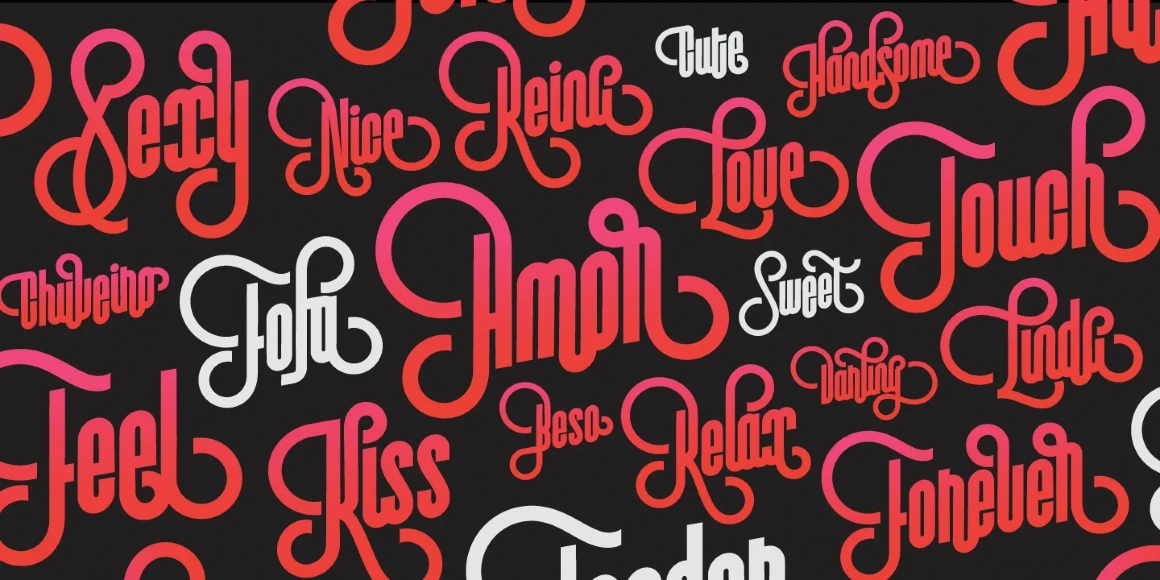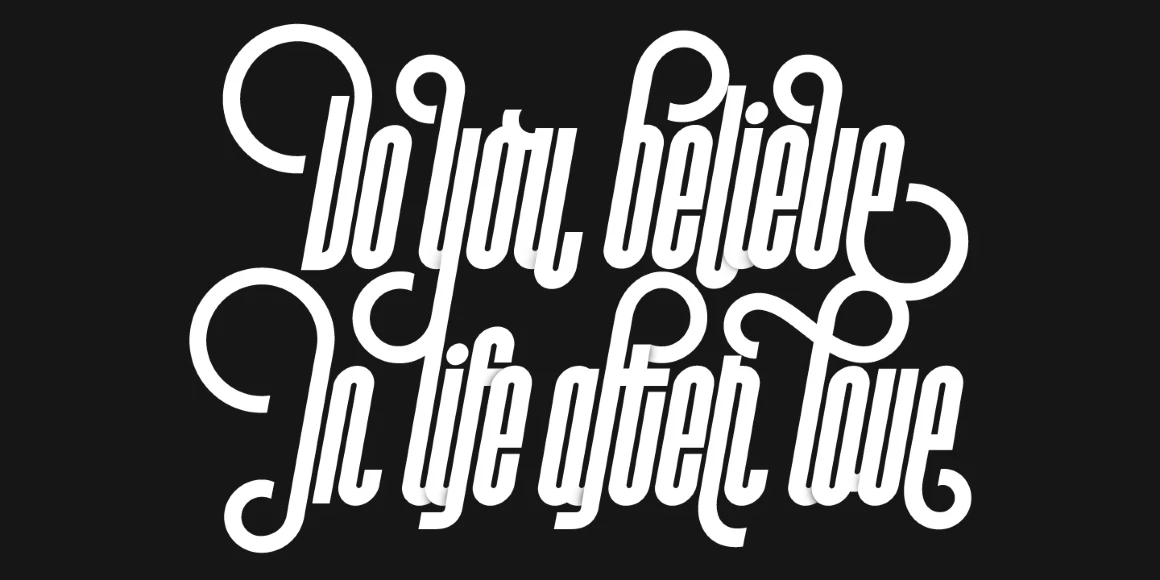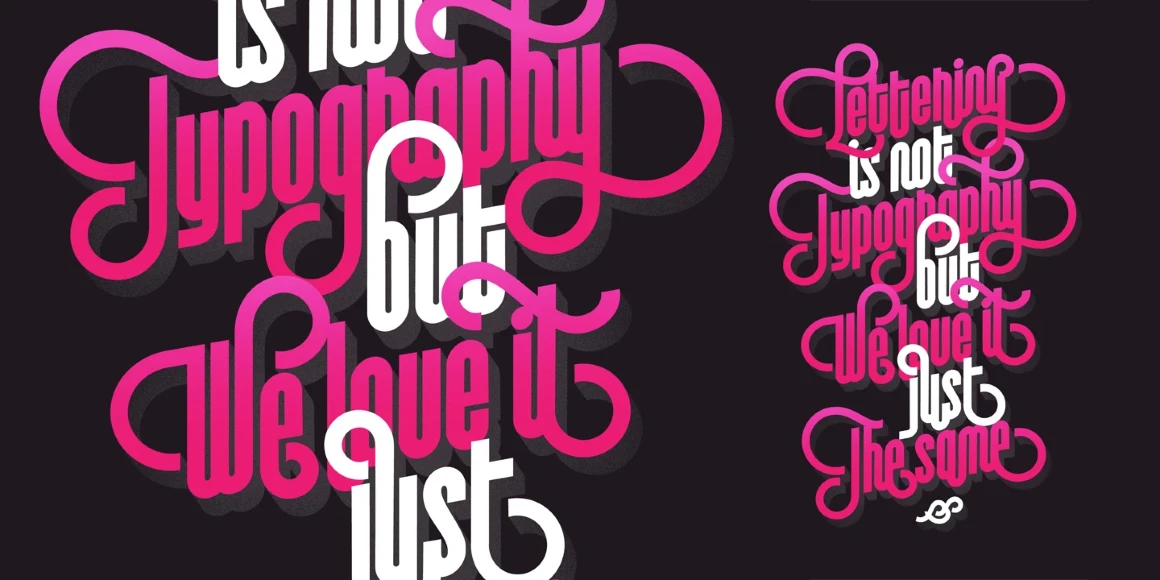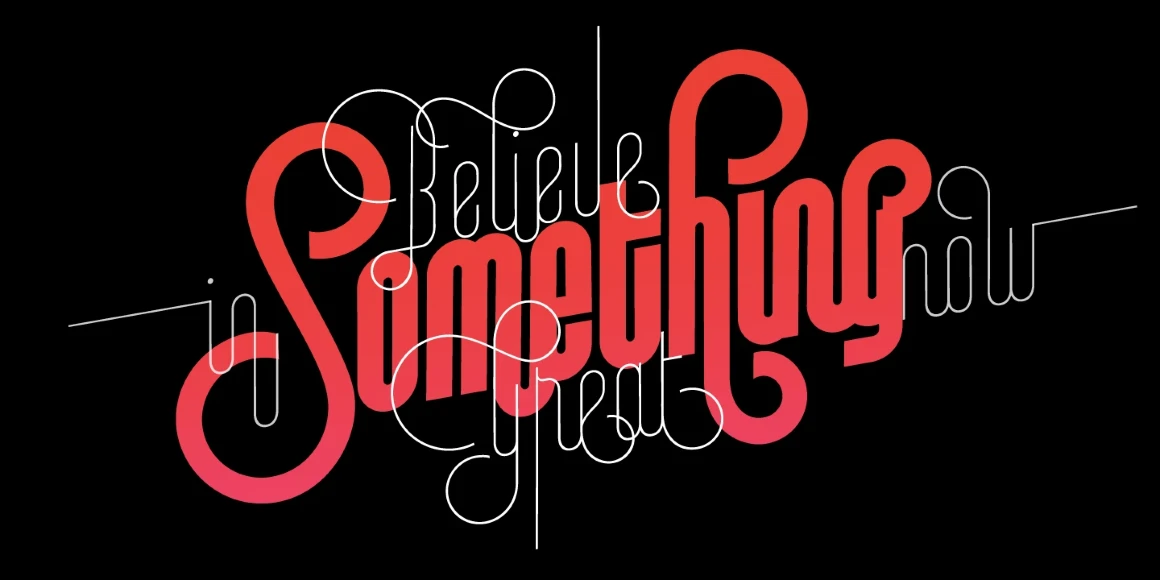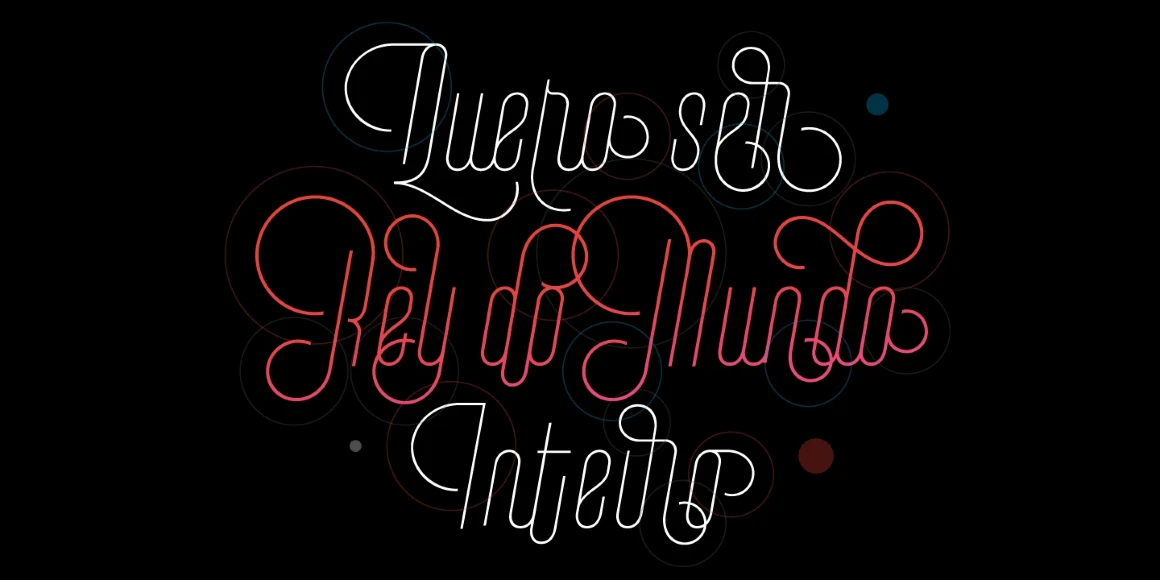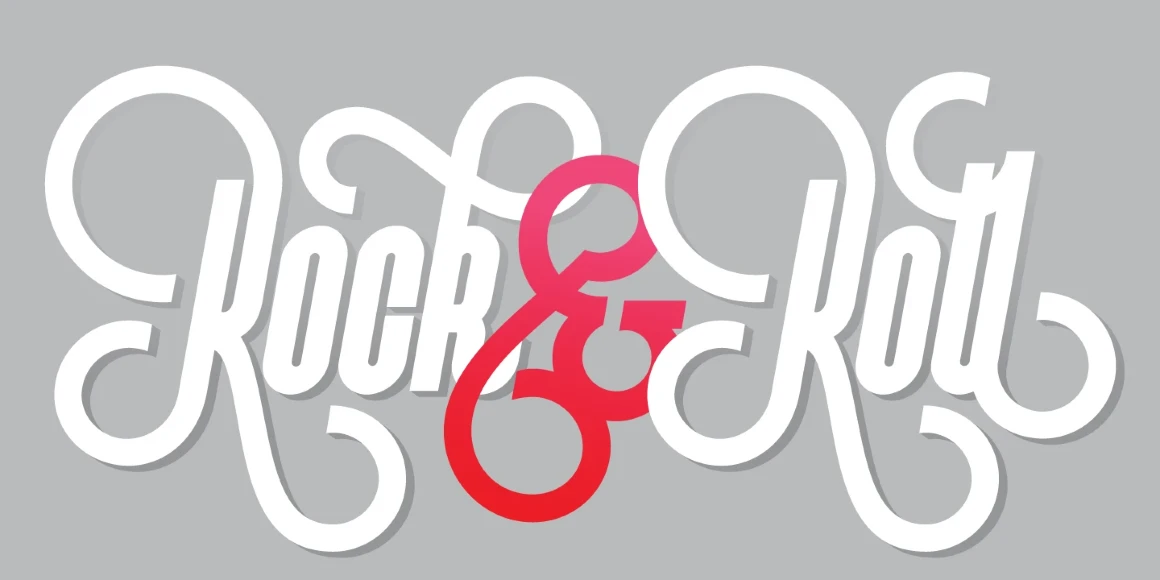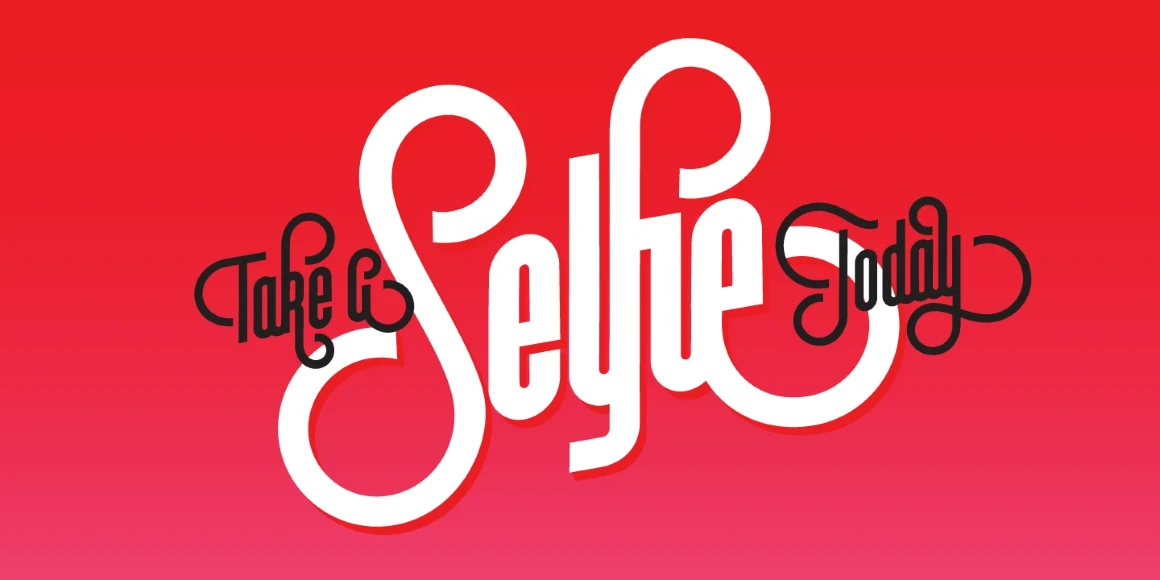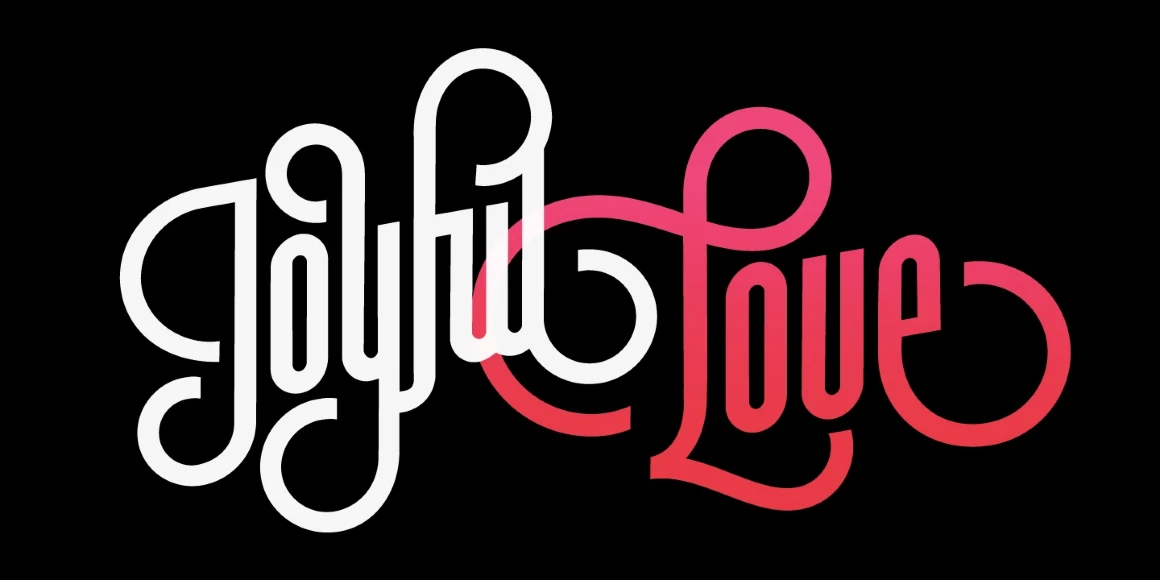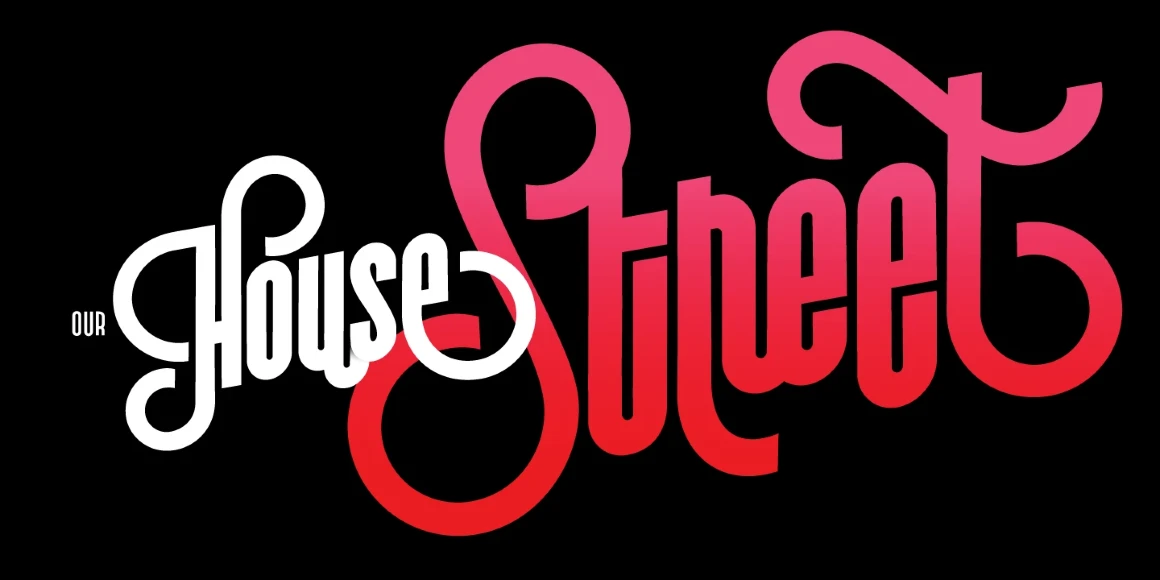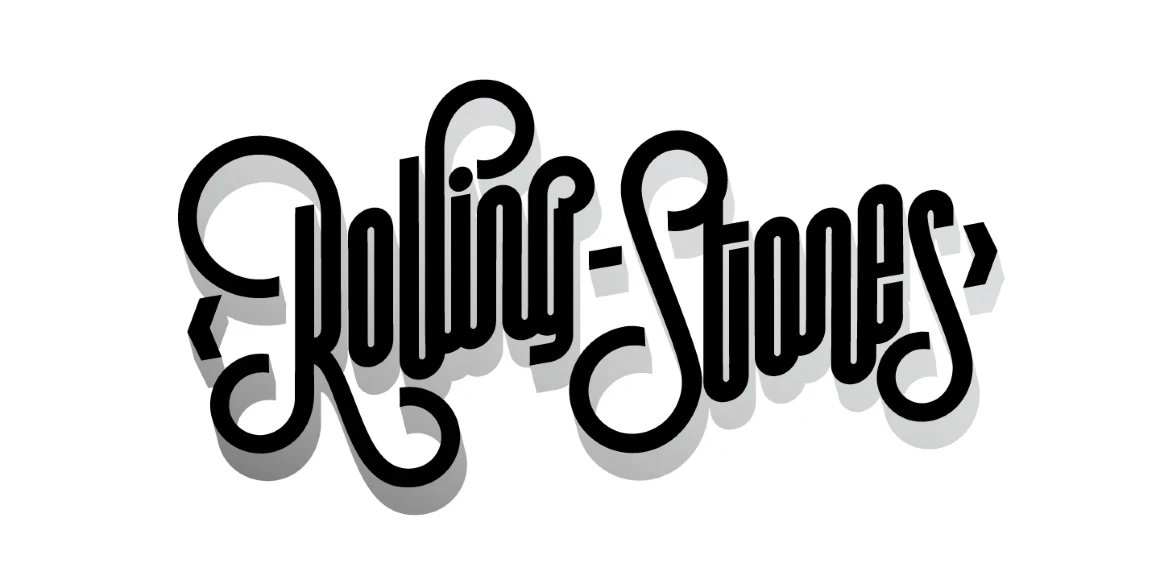
Vinyle
From Sproviero Type
Vinyle is a retro-futuristic sans with bold curves, smooth swashes, vertical rhythm, and serious stage presence. Its slanted stance and geometric forms channel the swagger of vintage records, neon signs, and custom lettering. Every script-like style grooves with a big personality, from Slim to Light and Regular to Tall. Just imagine it! Great for logos, headlines, posters, book covers, branding, or packaging needing POP! Vinyle turns typographic flair into a graphic statement with presence.
Designed by Maximiliano Sproviero
Vinyle Slim
Vinyle Light
Vinyle Regular
Vinyle Tall
Stylistic Set 8
Stylistic Set 9
Stylistic Set 10
Stylistic Set 11
Stylistic Set 12
Stylistic Set 13
Stylistic Set 14
Stylistic Set 15
Titling
Final Forms